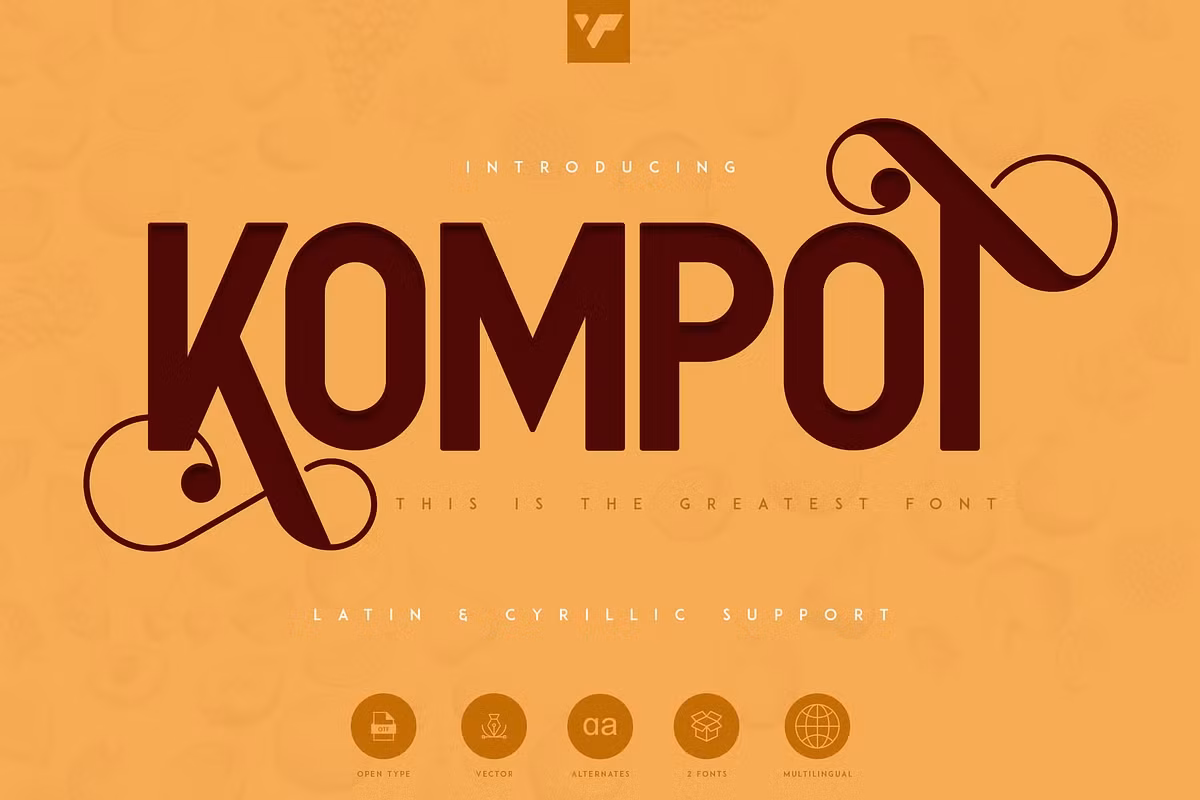
Please note, to use these fonts for commercial purposes, you must purchase the full version. Kompot Sans is a sleek and modern font family that includes two unique styles, perfect for a wide range of design projects. With its clean, geometric lines and contemporary design, this font is ideal for logos, branding, editorial designs, and more. Whether you're creating a corporate identity, a creative campaign, or a minimalist project, Kompot Sans provides versatility and clarity. Test it out and enjoy free download access for personal use. Explore the flexibility and style of Kompot Sans - 2 Fonts Free Download before purchasing the commercial license. Add a modern, clean touch to your designs with Kompot Sans.